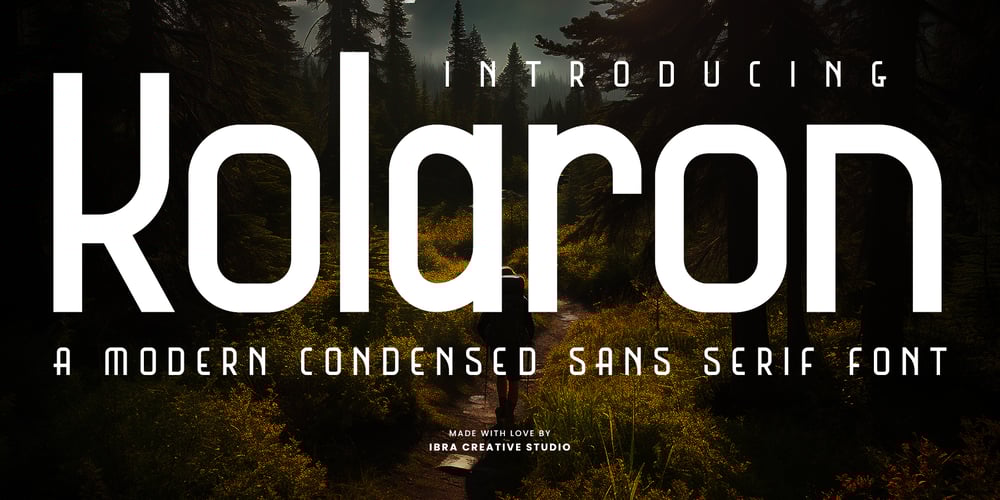
Kolaron Font Family was designed by Roisatul Azizah and published by IbraCreative. Kolaron contains 1 styles and family package options. Kolaron – A Modern Condensed Sans Serif FontKolaron is a contemporary condensed sans-serif font that effortlessly blends sophistication with modernity. Its sleek and streamlined design features condensed letterforms that exude a sense of efficiency and space optimization, making it an ideal choice for projects where legibility and style are paramount. The font’s clean lines and geometric shapes contribute to a polished and professional appearance, making it versatile for a range of applications, from corporate branding to editorial design. Kolaron’s balanced letter spacing and subtle yet distinctive details showcase a meticulous attention to typographic detail, ensuring a harmonious and eye-catching visual experience across various mediums. Whether used for headlines, signage, or digital interfaces, Kolaron stands as a testament to the elegance achievable in contemporary typography.Kolaron is perfect for branding projects, logo, wedding designs, social media posts, advertisements, product packaging, product designs, label, photography, watermark, invitation, stationery, game, fashion and any projects.Fonts include multilingual support for; Afrikaans, Albanian, Czech, Danish, Dutch, English, Estonian, Finnish, French, German, Hungarian, Italian, Latvian, Lithuanian, Norwegian, Polish, Portuguese, Slovak, Slovenian, Spanish, Swedish.